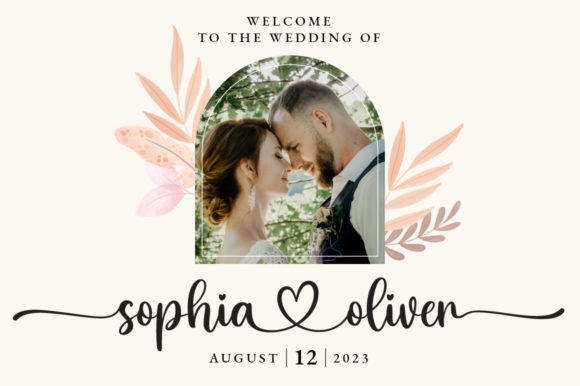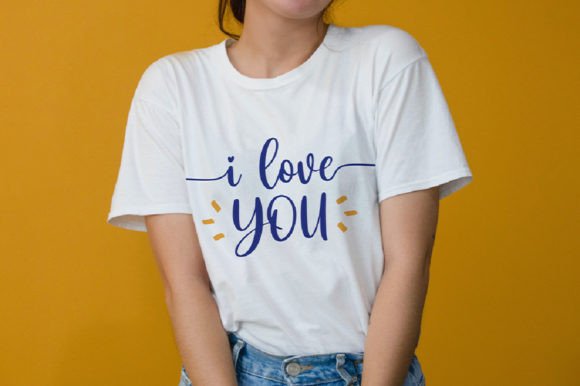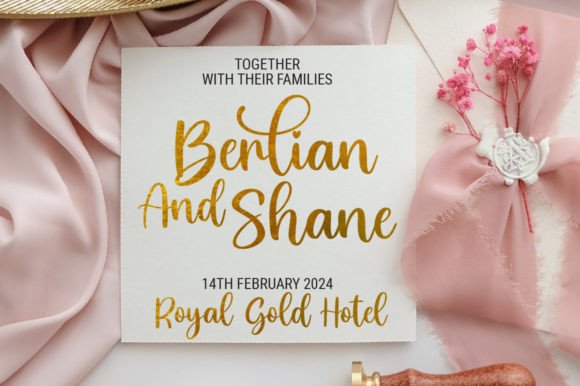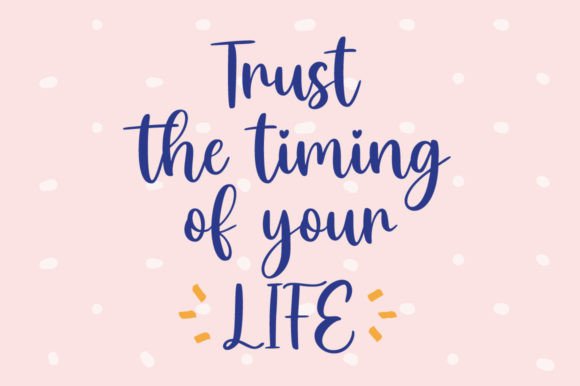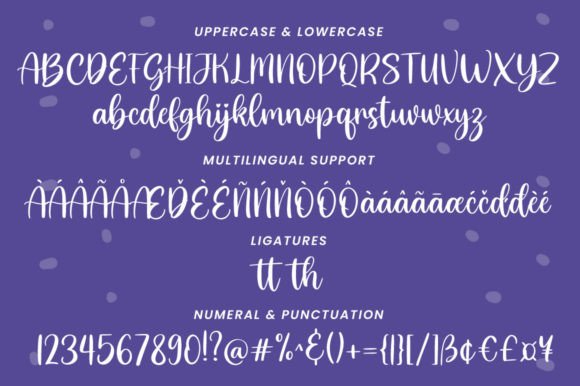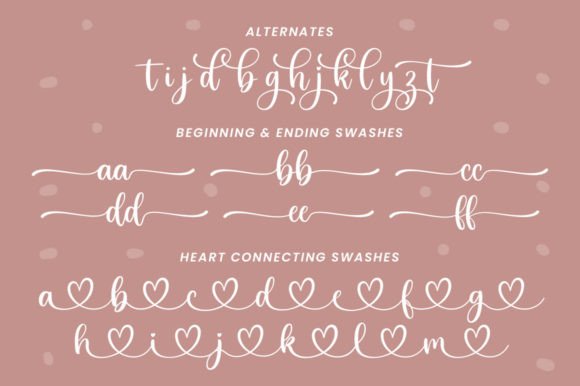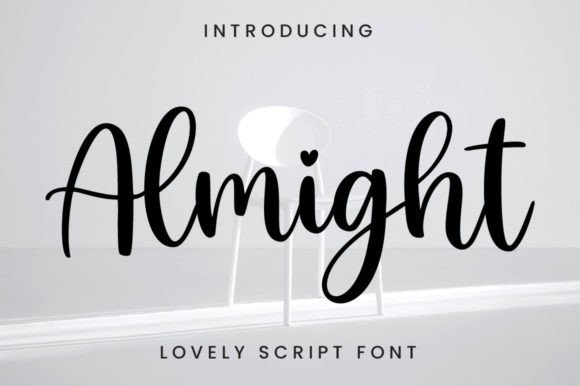
Introducing Almight Font: The Elegant Brush Handwritten Font for Creative Designs
In the world of typography, a beautiful font can make all the difference in creating stunning designs. If you’re a designer, crafter, or DIY enthusiast looking for a lovely and elegant brush handwritten font, look no further than Almight Font. This gorgeous font is perfect for a wide range of creative projects, from logos and wedding stationery to cards, gift designs, photography, and more.
What Makes Almight Font So Special?
Almight Font is a beautifully crafted brush handwritten font that exudes elegance and sophistication. Its unique, flowing strokes and delicate connections make it perfect for designs that require a personal touch. Whether you’re creating a logo, a wedding invitation, or a social media graphic, Almight Font is sure to impress.
One of the best things about Almight Font is its versatility. It’s perfect for a wide range of design projects, including:
- Logos: Create a stunning logo for your business or brand with Almight Font. Its elegant and sophisticated design makes it perfect for companies that want to convey a sense of luxury and refinement.
- Wedding Stationery: Make your wedding stationery truly special with Almight Font. Use it for invitations, save-the-date cards, and more to create a beautiful and cohesive look.
- Cards and Gift Designs: Add a personal touch to your cards and gift designs with Almight Font. Its beautiful, flowing strokes make it perfect for creating unique and eye-catching designs.
- Photography: Use Almight Font to create beautiful watermarks for your photos. Its elegant design won’t distract from your images, but will add a touch of sophistication.
- Product Packaging: Make your product packaging truly special with Almight Font. Use it for labels, tags, and more to create a beautiful and cohesive look.
- Handwritten Quotes: Create stunning handwritten quotes with Almight Font. Its beautiful, flowing strokes make it perfect for social media graphics, blog posts, and more.
Lovely Alternates for Added Creativity
One of the best features of Almight Font is its lovely alternates. These alternates include:
- Heart Connecting Lowercase Swashes: Add a touch of romance to your designs with heart connecting lowercase swashes.
- Beginning and Ending Lowercase Swashes: Create beautiful, flowing strokes with beginning and ending lowercase swashes.
- Other Lowercase Alternates: Experiment with other lowercase alternates to add variety and creativity to your designs.
Why Choose Almight Font?
So why choose Almight Font for your design projects? Here are just a few reasons:
- Elegant and Sophisticated: Almight Font is a beautifully crafted font that exudes elegance and sophistication.
- Versatile: Use Almight Font for a wide range of design projects, from logos and wedding stationery to cards and gift designs.
- Lovely Alternates: Experiment with lovely alternates to add creativity and variety to your designs.